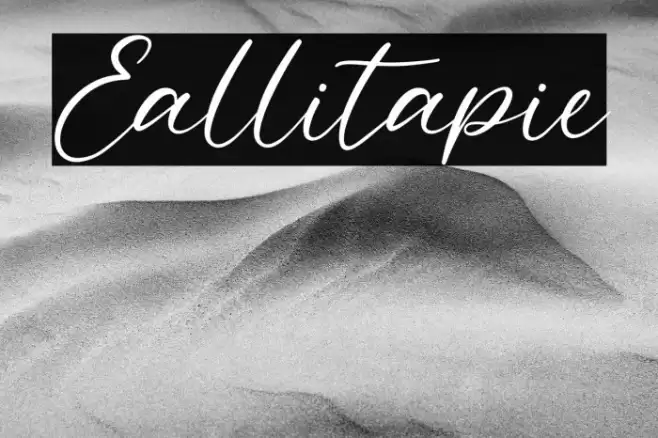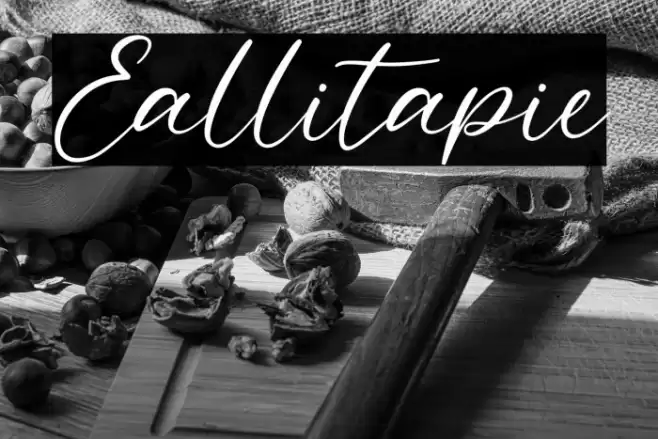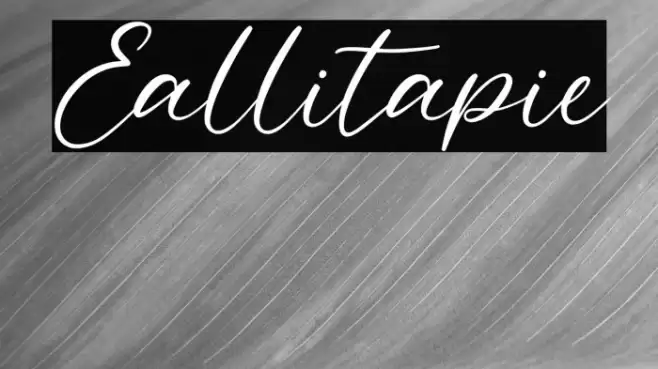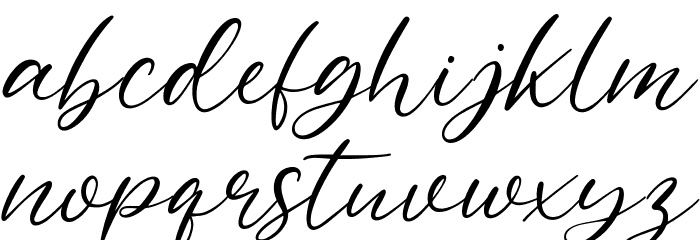
Eallitapie Font
Eallitapie Description
This elegant script font features fluid, cursive strokes that convey a sense of sophistication and grace. The letters are interconnected, creating a seamless flow that mimics natural handwriting. The uppercase characters are slightly more embellished, while the lowercase letters maintain a consistent style with gentle curves and loops. The numerals and special characters are crafted with the same attention to detail, ensuring uniformity across the font. This font's overall aesthetic is both classic and modern, making it versatile for various design applications.
A graceful script font with fluid, cursive strokes and interconnected letters from Uncategorized fonts.
- Proposed Projects: Ideal for wedding invitations, elegant branding, personal stationery, and decorative quotes.
- Overall Style: Elegant, Modern
- Use Case: Logos, Invitations, Decorative text